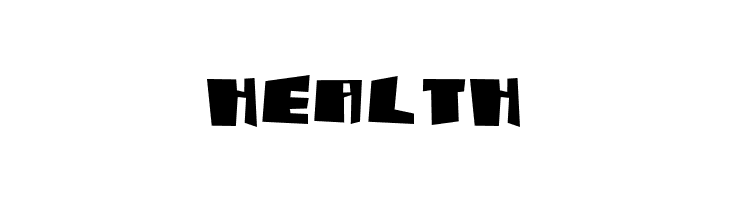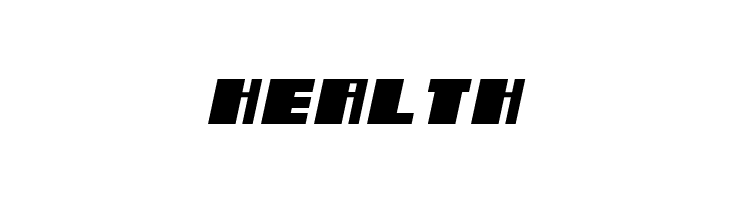
Salmiak College Font
A bold, geometric font with thick outlines and angular shapes.
Salmiak Italic Font
A bold, geometric, and italic font with a modern, dynamic style.
Salmiak Bold Rounded Font
A bold, rounded font with a modern, geometric style.
Salmiak Regular Font
A bold, geometric font with angular shapes and a modern, industrial aesthetic.
Salmiak Gradient Font
A bold, striped font with a modern, digital aesthetic.
Salmiak Screwed Font
A bold, angular font with a dynamic, skewed design.
Salmiak Shadow Font
A bold, geometric font with a three-dimensional shadow effect.